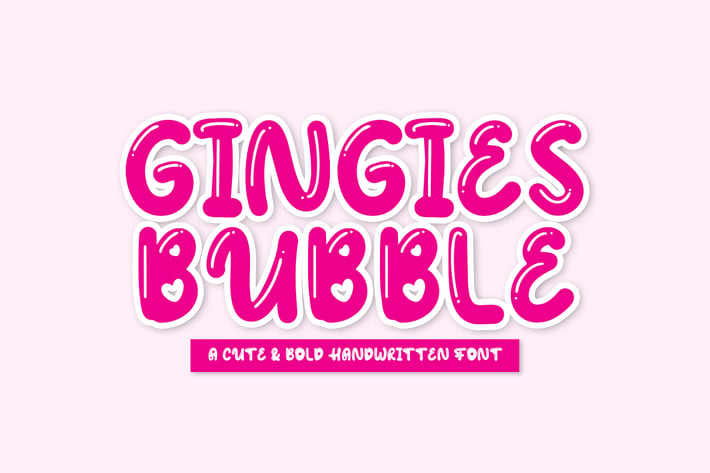
Gingies Bubble - Handwritten Font
Gingies Bubble is a cute, bold, and playful handwritten font. Fall in love with its incredibly versatile style and use it to create beautiful designs!